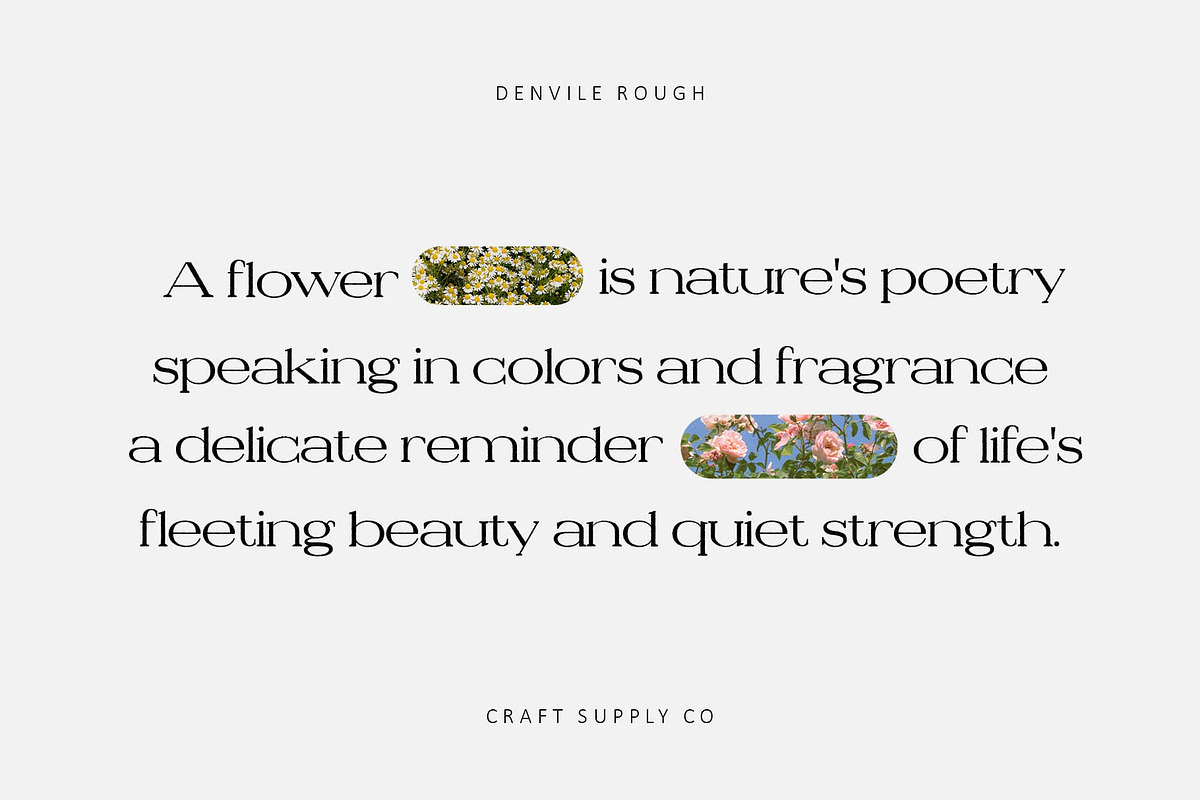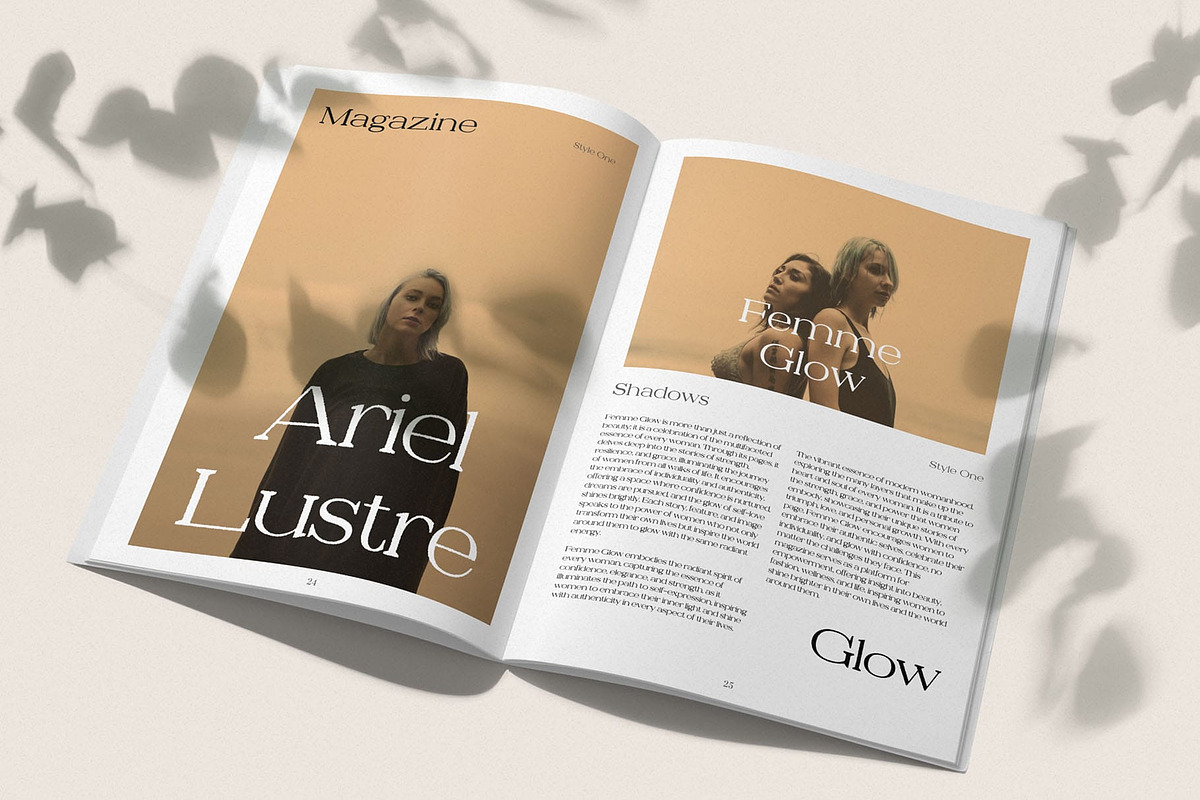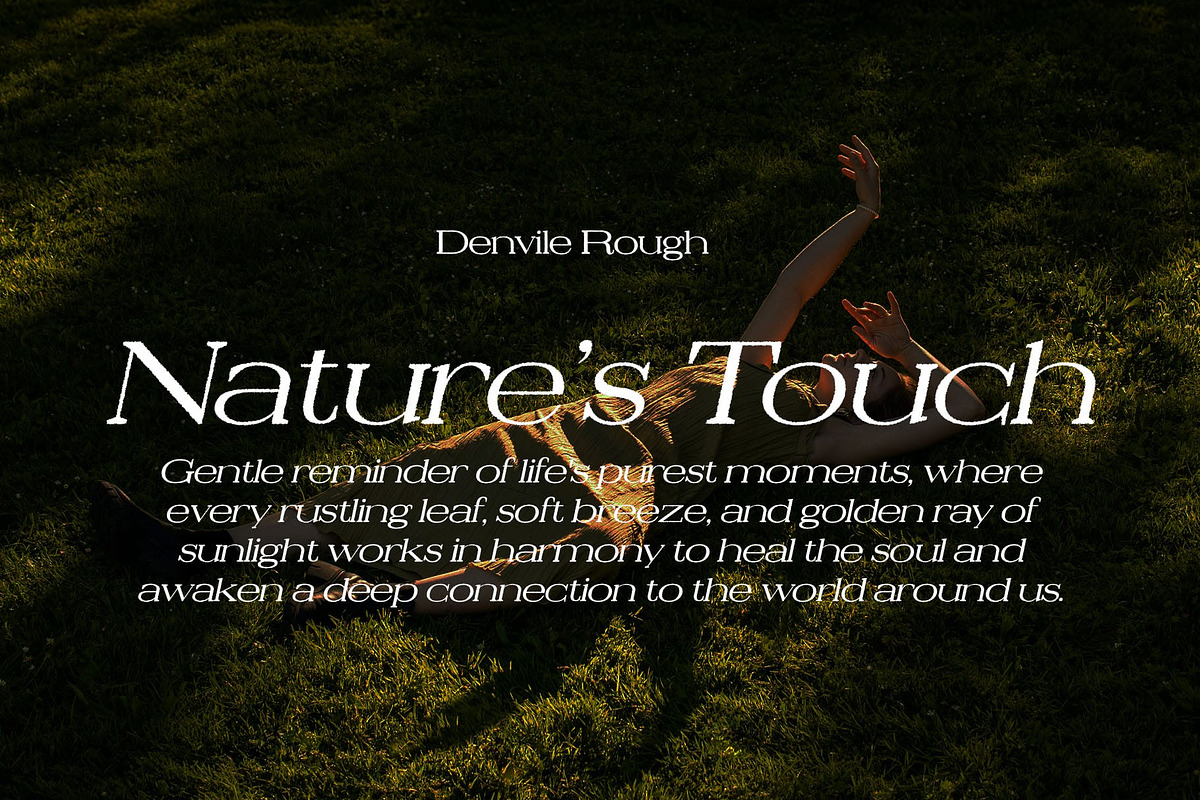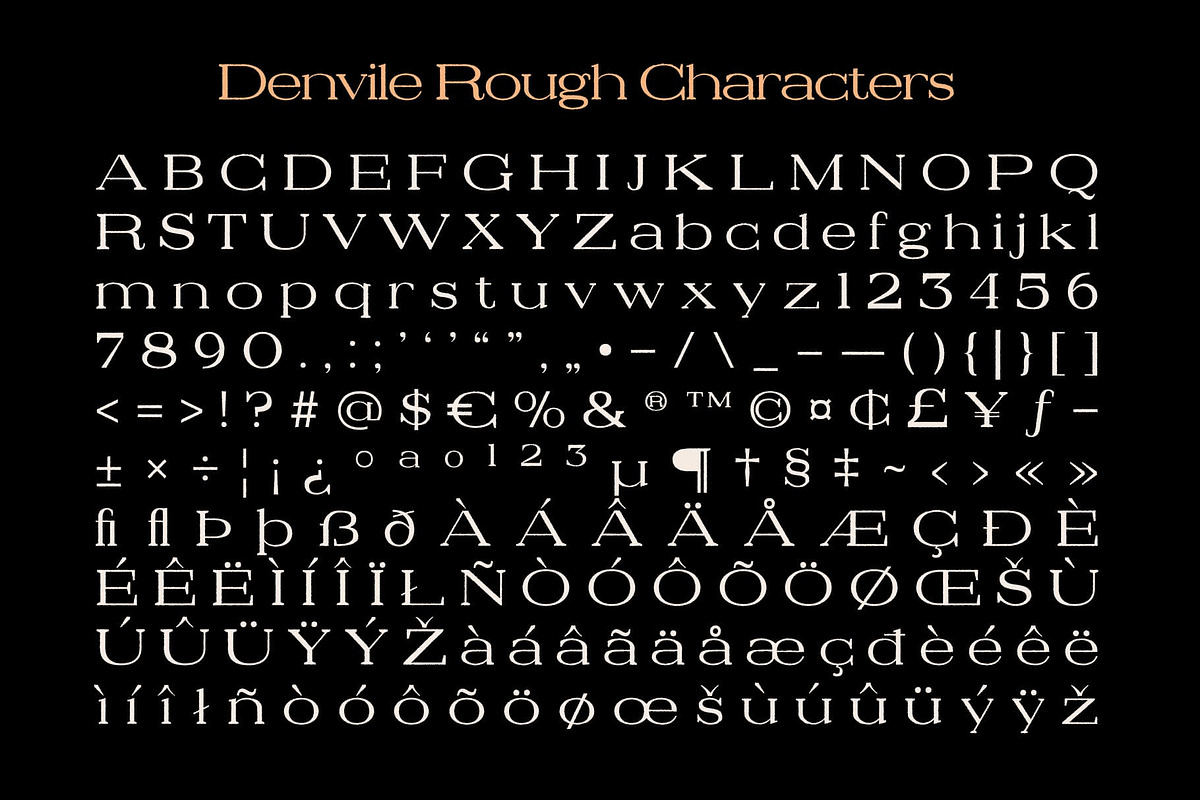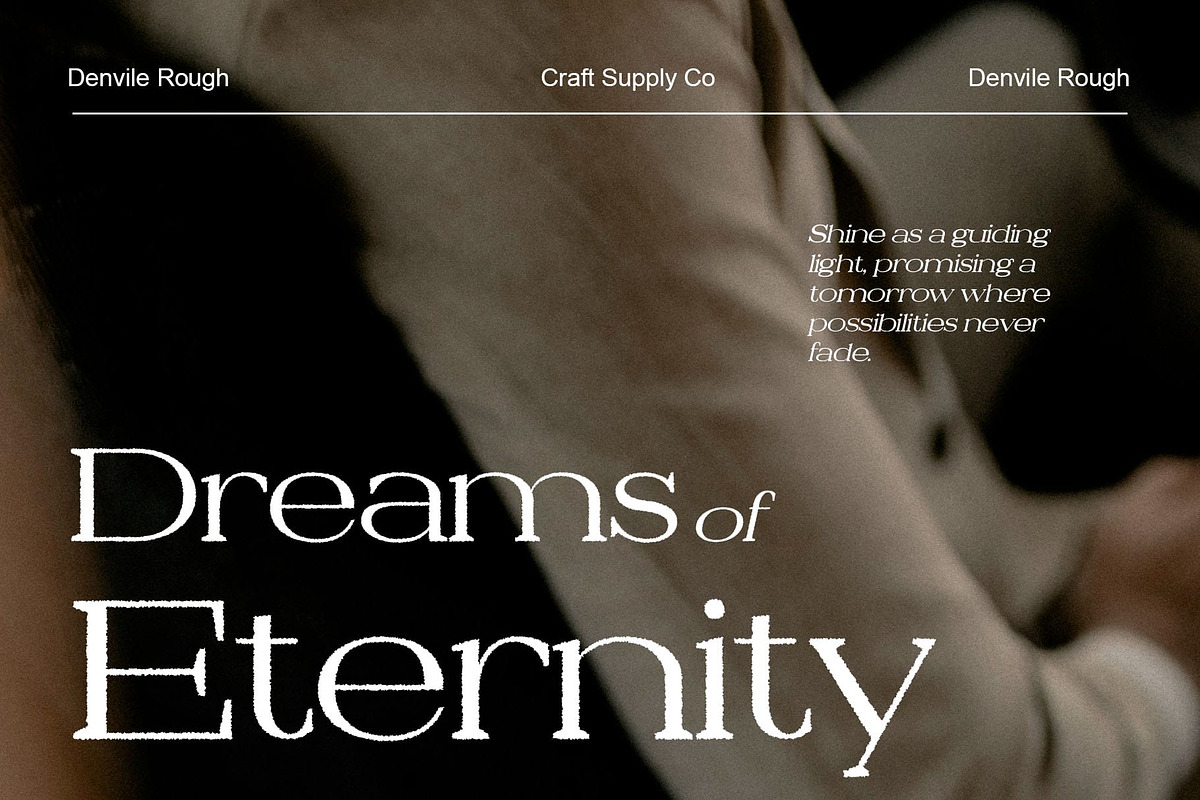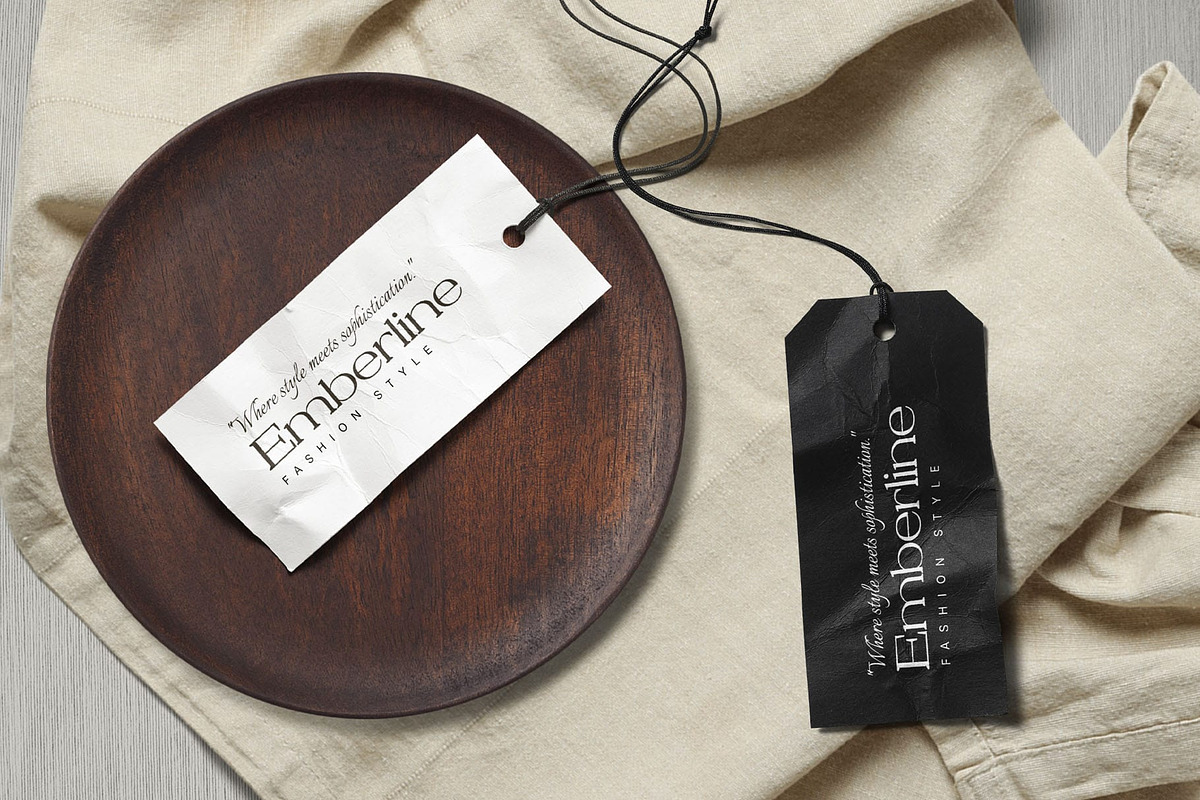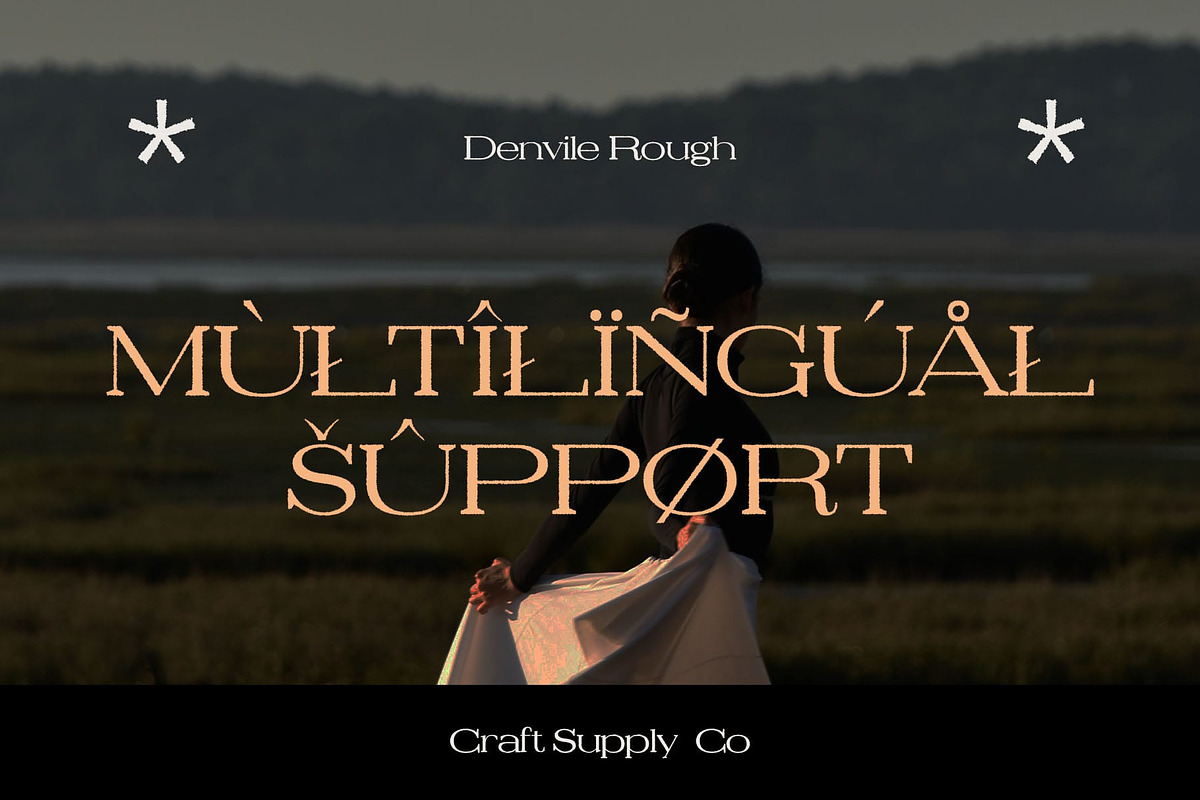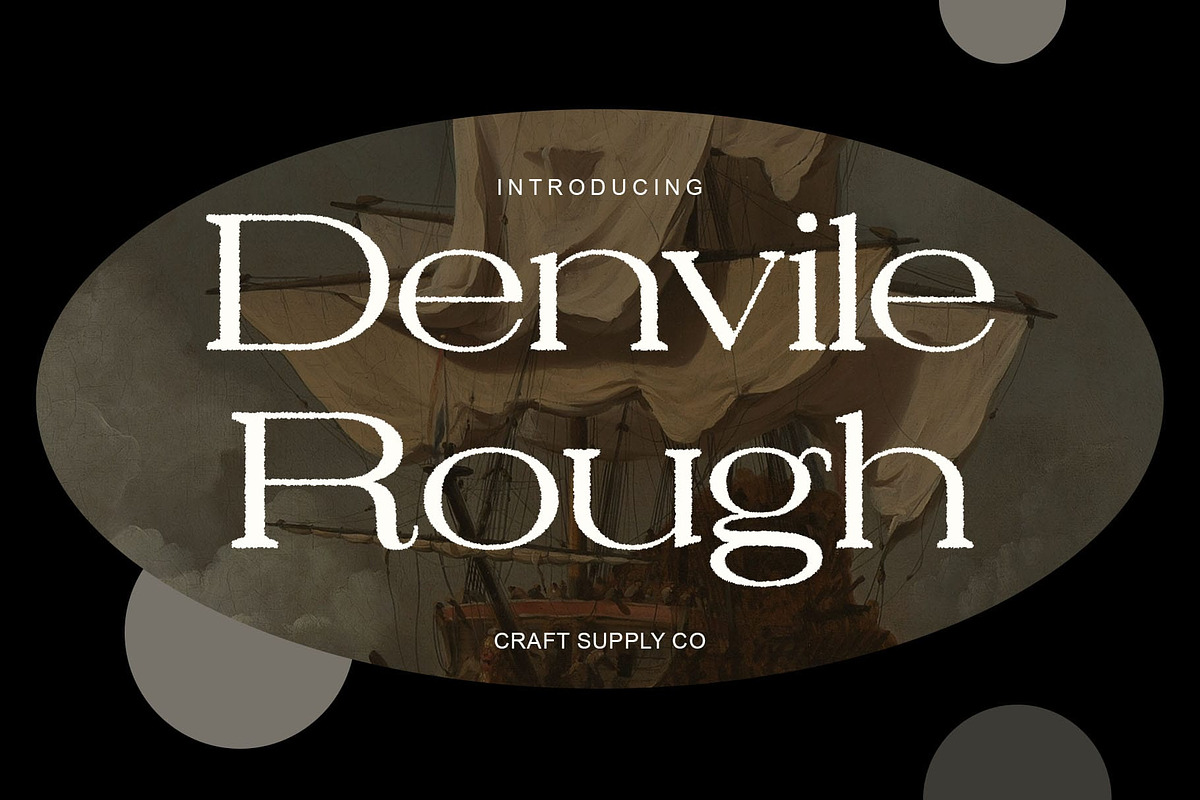
Denvile Rough
Denvile Rough Font: A Blend of Elegance and Texture
Wide-Set Modern Serif with a Raw Edge Denvile Rough is a modern serif font with wide proportions, exuding elegance and sophistication while featuring a distinctive rough effect. Its bold, expansive structure conveys strength and confidence, making it perfect for striking headlines and impactful design work. The addition of a textured, weathered finish adds depth and warmth, giving the font an organic and artisanal quality.
Sophistication with Artistic Character This typeface strikes a perfect balance between refinement and ruggedness, offering a versatile solution for projects that require a touch of luxury paired with artistic flair. Its wide letterforms and textured details create a visual contrast that is both commanding and approachable.
Versatile for Bold Creative Projects Denvile Rough is ideal for a range of creative applications, from branding and packaging to editorial layouts and poster designs. Whether you’re crafting premium product labels, designing bold event graphics, or adding personality to digital projects, this font delivers both elegance and a raw, handcrafted edge.
Add Depth and Personality to Your Designs With its unique blend of wide, classic serif forms and a rough, textured surface, Denvile Rough ensures your designs stand out. Perfect for creatives seeking a typeface that combines luxury with a natural, unpolished charm.